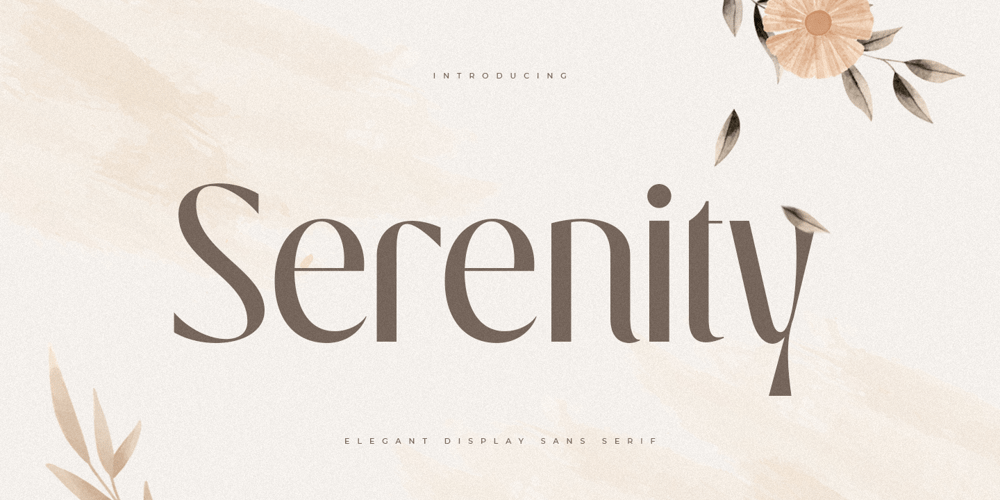
Serenity Style Font Family was designed by Zamroni Hamzah and published by Sensatype Studio. Serenity Style contains 1 styles and family package options. A Luxury Elegant Beauty font that we created special for elegant branding needs, with unique shape will be ready to add value of your brand. And specially for Serenity font, We prepared any characters to help you create unlimited variations for your creative needs.Serenity Luxury Elegant Beauty Font ready with: Unique Classy Characters Preview as a inspirations that you can do with Serenity font Ready with Lowercase and Uppercase characters Wish you enjoy our font. ๐